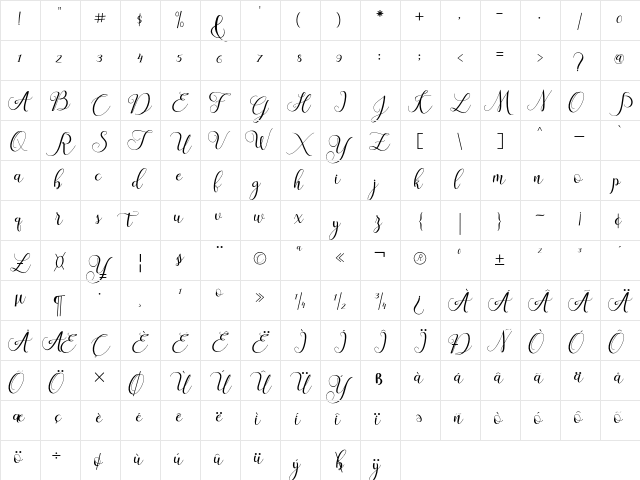
claudia Regular
| Foundry | Muhammad Rizal ( MrLetters) |
| Designer | Muhammad Rizal ( MrLetters) |
Design Context for claudia Typeface
claudia is a composed and adaptable typeface that performs quietly and consistently across a wide range of design contexts.